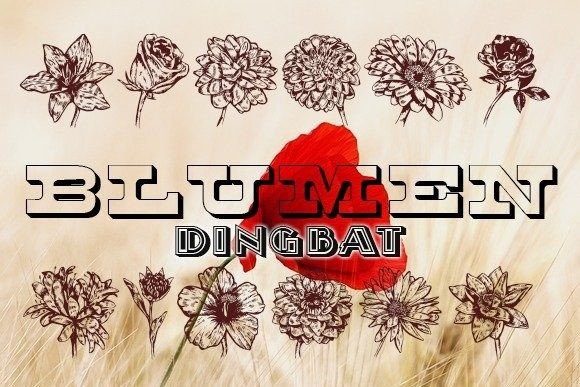
The Blooming Wonderful Blumen Font: A Designer’s Delight
I’ll never forget the time I was working on a project for a trendy boutique hotel, and I needed a font that would capture the essence of their brand – playful, yet sophisticated. I scoured the internet, tried out countless fonts, but none seemed quite right. That was until I stumbled upon the stunning Blumen Font. It’s been a game-changer ever since! 🌼
An Honest Review of Blumen Font
- ✨ Unique and eye-catching design that’s perfect for making a statement
- ✅ Highly versatile and can be used on various design materials, from posters to t-shirts
- 🌈 Beautifully crafted dingbat that adds a touch of elegance to any design
- 💻 Works seamlessly on digital platforms, ensuring crisp and clear rendering
While Blumen Font is an amazing addition to any design project, there are a few things to keep in mind:
- 🤔 Limited character set, which may not be suitable for projects requiring a wide range of text
- ⚠️ May not work well at very small font sizes, as some details may get lost
One of the best things about Blumen Font is its support for OpenType features and glyphs. This means you can access a range of stylistic alternates, swashes, and other special characters to add more personality to your design.
The Story Behind Blumen Font
Blumen Font was created by a talented designer who drew inspiration from the world of flowers and botany. The font’s intricate details and beautiful curves are reminiscent of a delicate flower, making it perfect for designs that require a touch of elegance.
Q: What type of designs is Blumen Font best suited for?
A: Blumen Font is highly versatile and can be used on various design materials, from posters and flyers to t-shirts and digital platforms.
Q: Is Blumen Font easy to read?
A: While Blumen Font is a beautiful and elegant font, it may not be the most readable font for body text. It’s best used for headlines, titles, or short phrases.